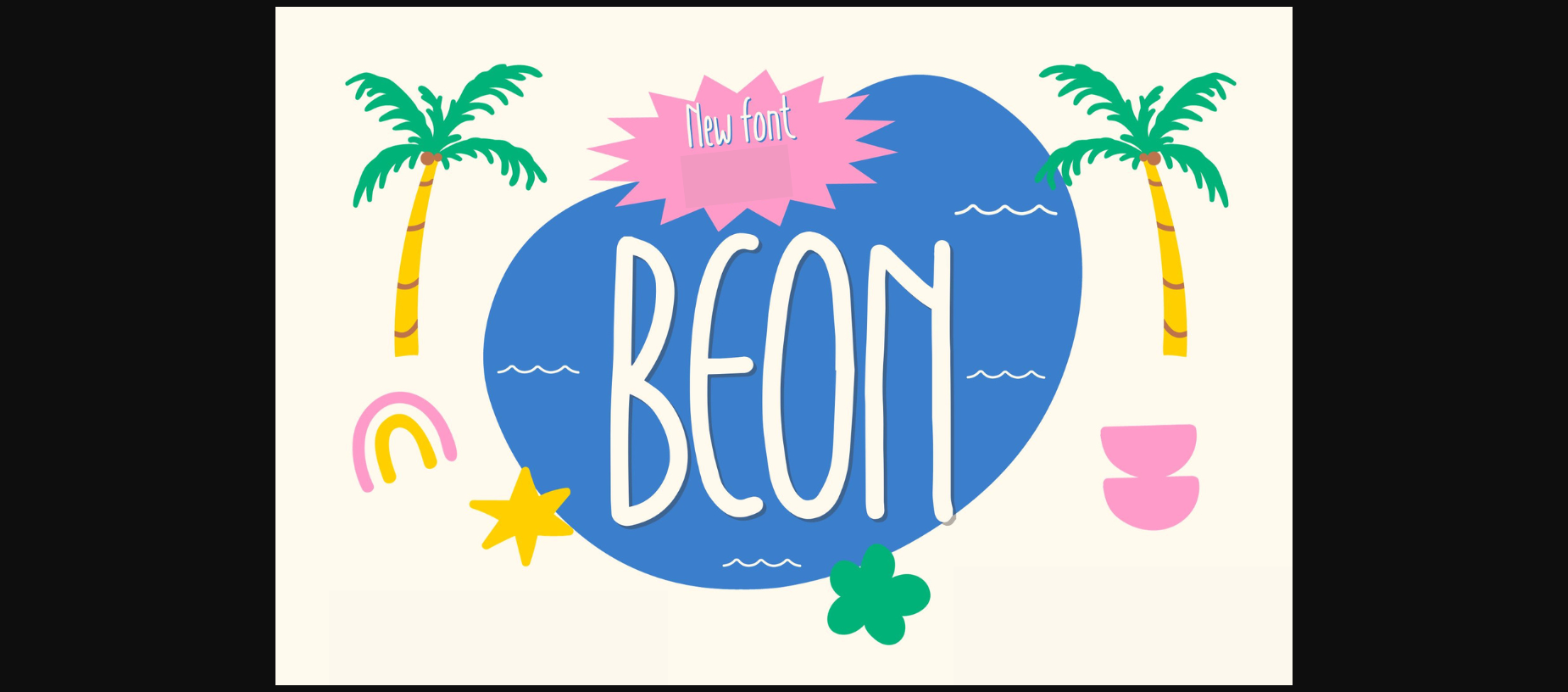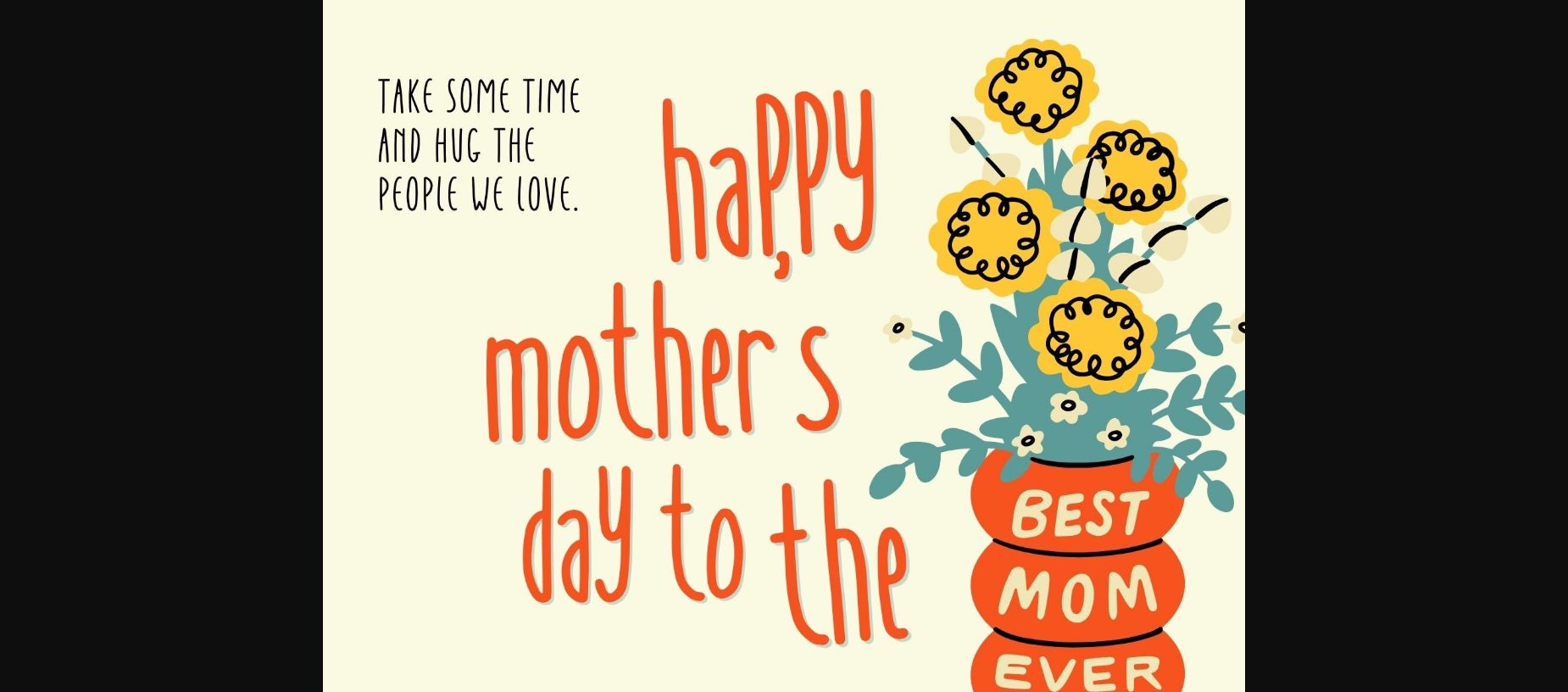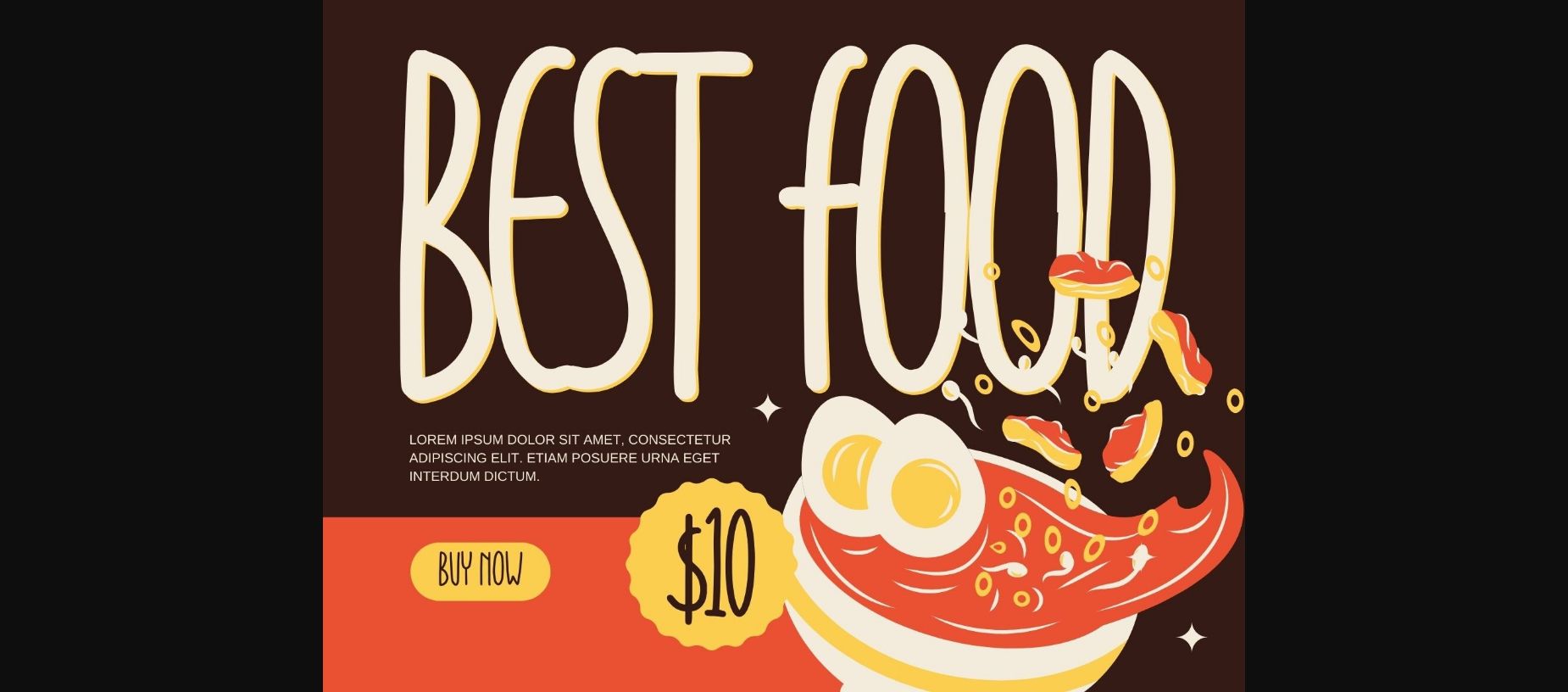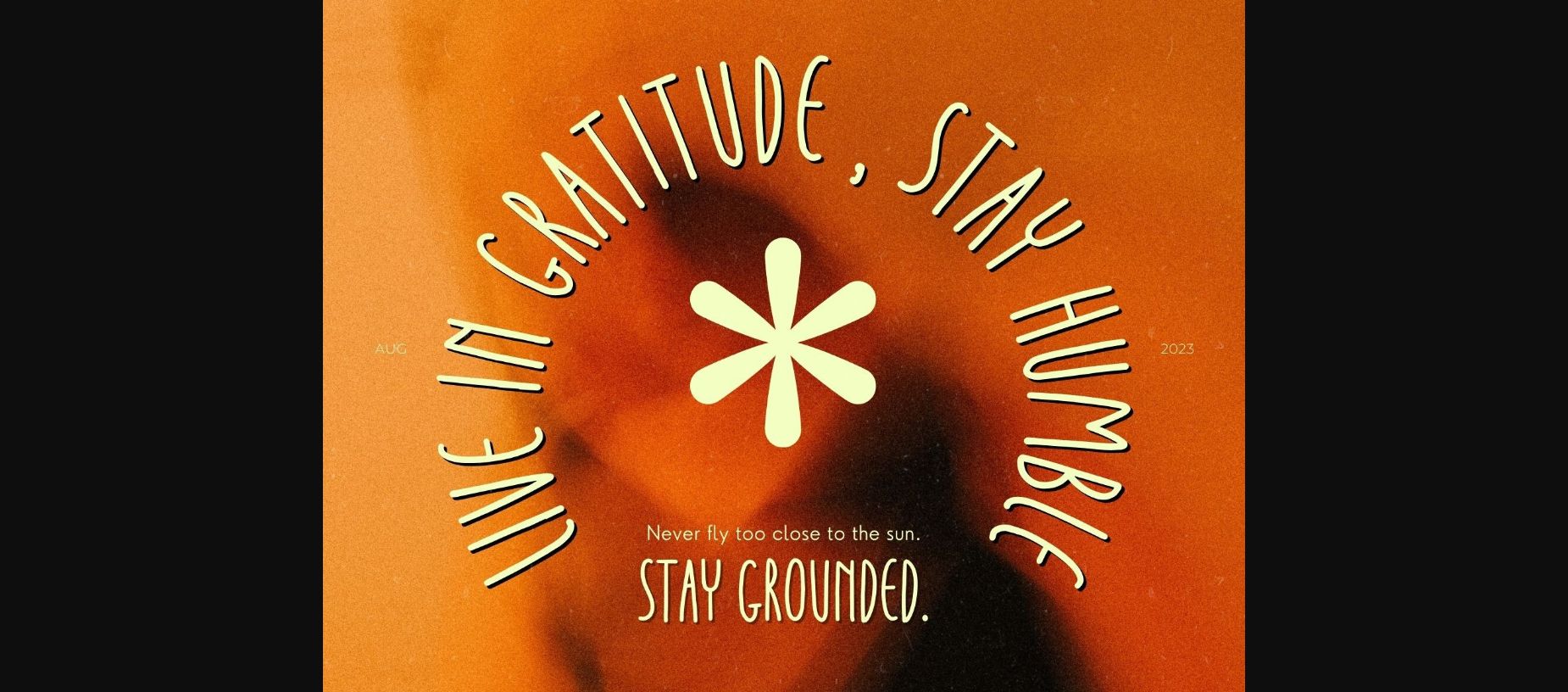
About Beon Font
Beon Handdrawn is a bold, and thick font that will help you create fun and playful designs and will look good on a variety of branding and packaging projects. This chubby font features the perfect combination of fun and creativity to instantly grab anyone’s attention.